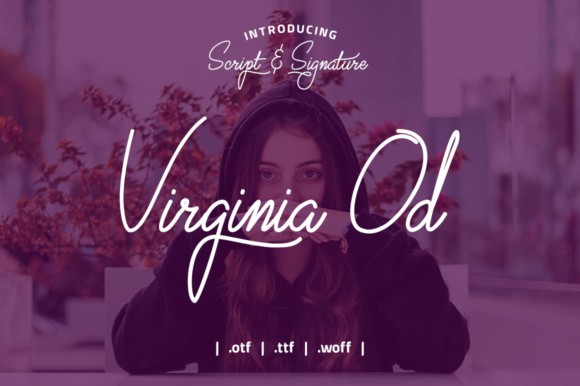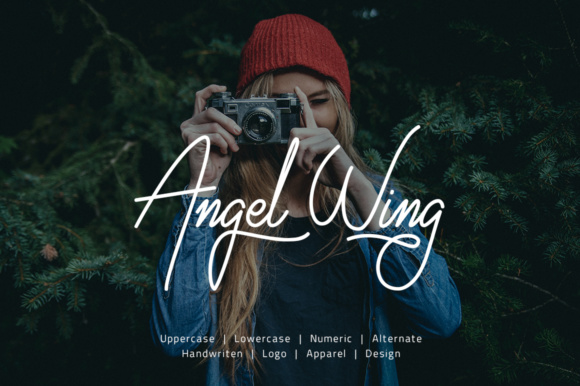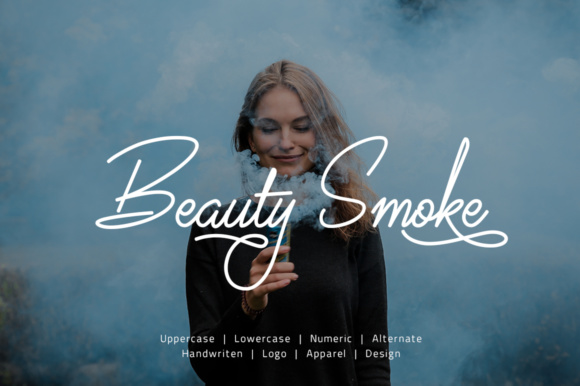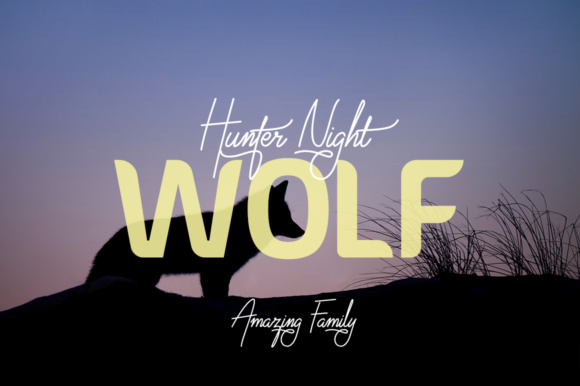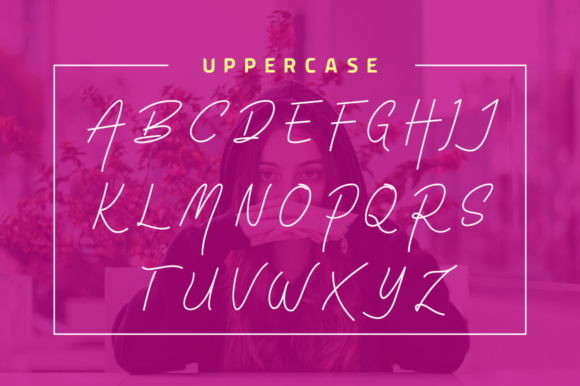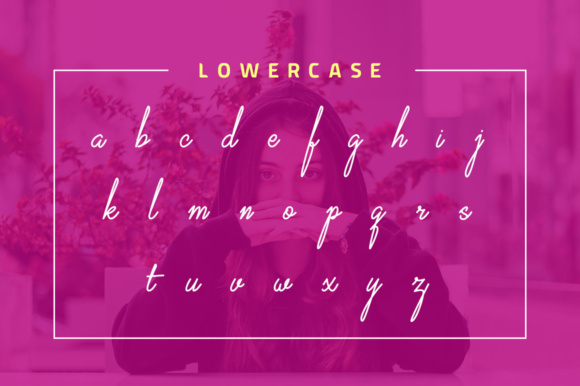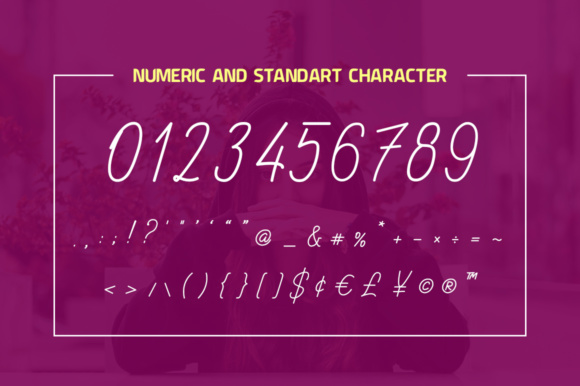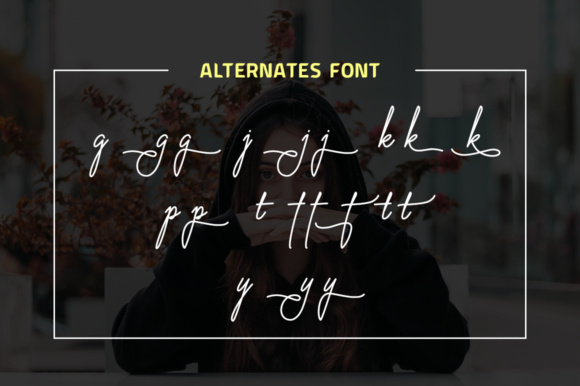
Virginia Od Script Font
About Virginia Od Script Font
Virginia Od Script is a stylish calligraphy font that features a varying baseline. It has smooth lines which will give your design a classic and interesting touch. Virginia Od can be used for various purposes such as headings, signatures, logos, posters, t-shirt, and much more!